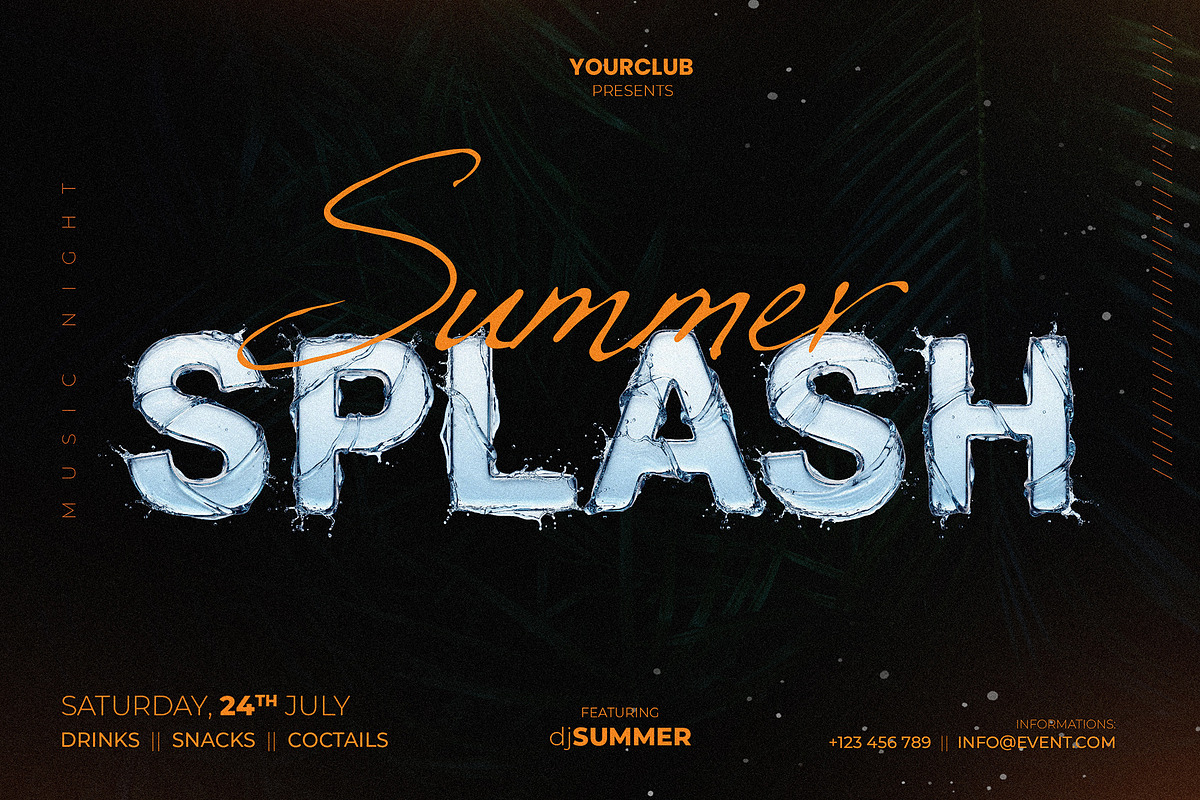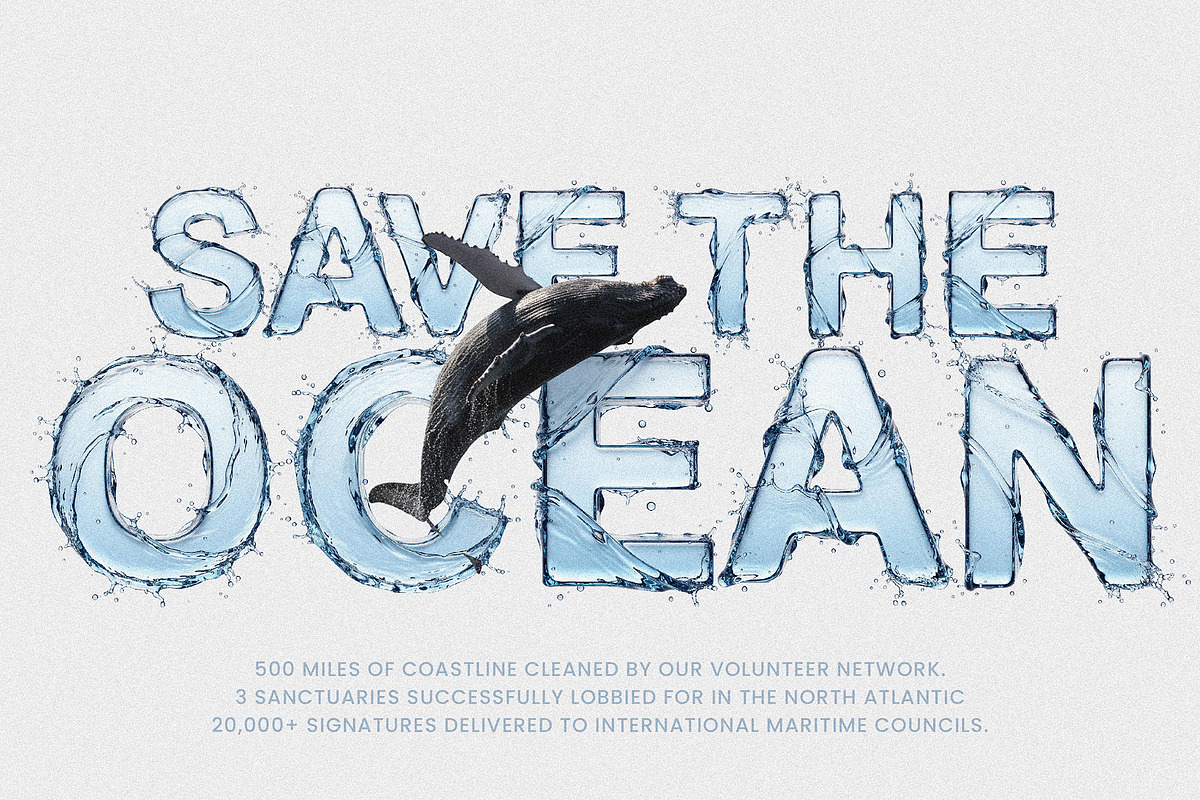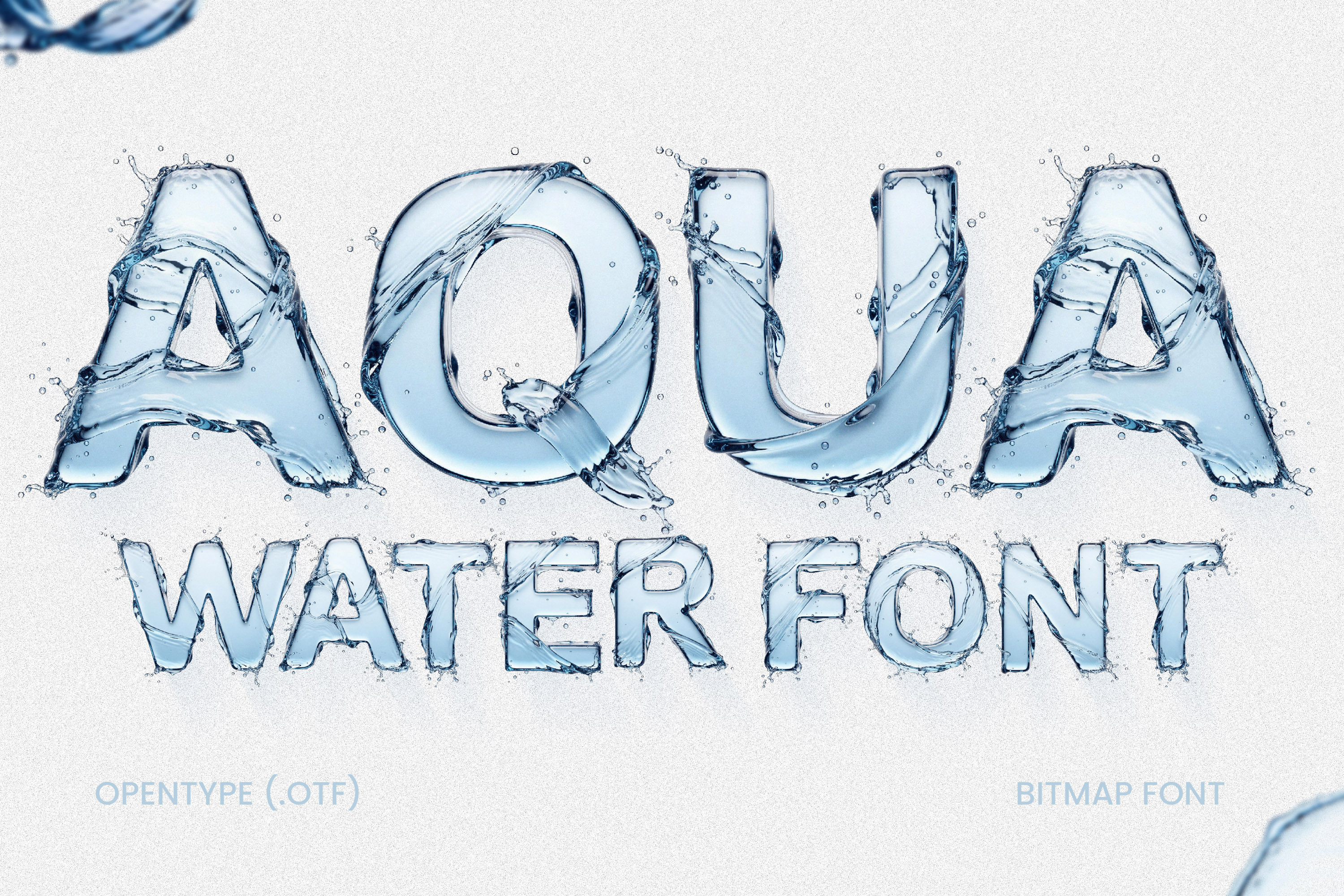
Aqua - Realistic Water Font
This isn't just a standard typeface; it is a high-definition collection of 3D-rendered letters that look exactly like captured splashes of crystal-clear water.
Perfect for designers, photographers, and creatives who need to add a refreshing touch to their projects without spending hours mastering 3D software. Each letter is meticulously crafted to show light refraction, bubbles, and dynamic splashes, ensuring your text pops off the screen (or page).
- Summer Event Flyers: Pool parties, beach bashes, and summer camp advertisements.
- Beverage Branding: Labels for bottled water, energy drinks, juices, or smoothie bars.
- Environmental Campaigns: Posters for ocean conservation, clean water initiatives, or eco-friendly products.
- Bathroom & Spa Decor: Wall art or signage for spas, swimming centers, or bathroom product packaging.